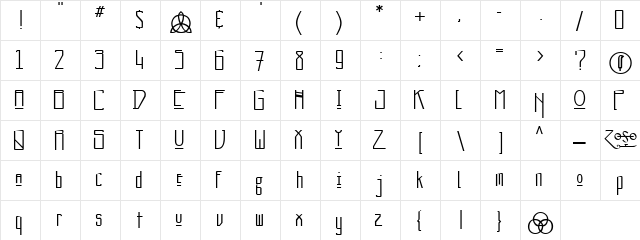
Mission K Regular
Design Context for Mission K Typeface
Mission K takes a measured approach to typography — its balanced proportions and neutral character make it a reliable workhorse for both digital and print work.